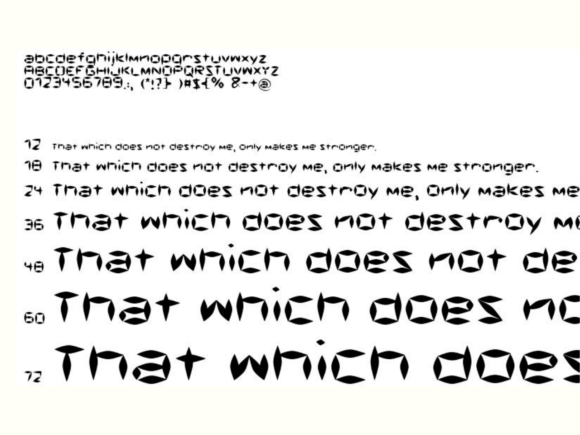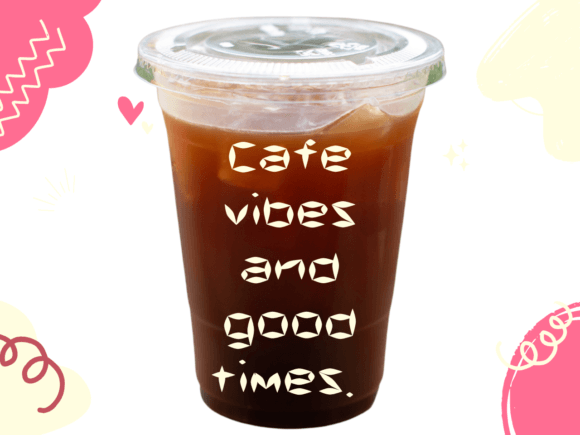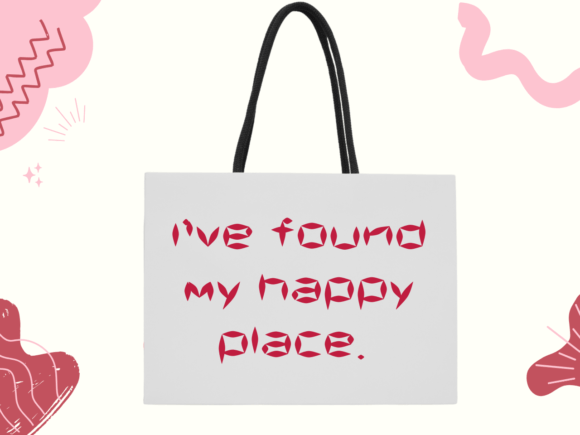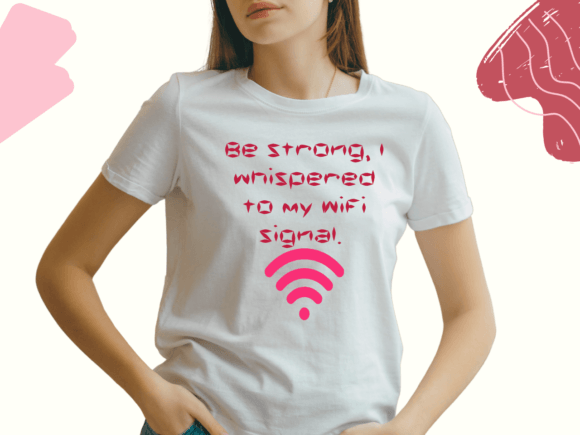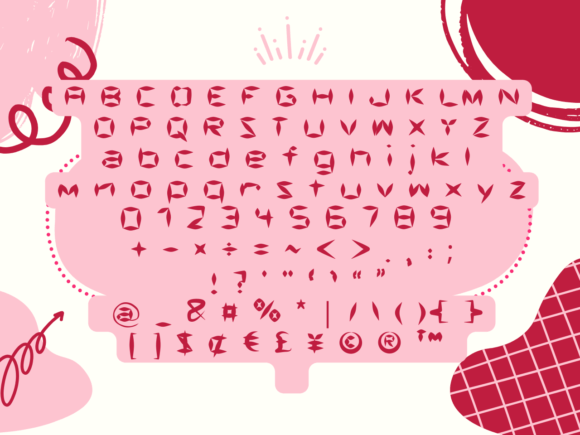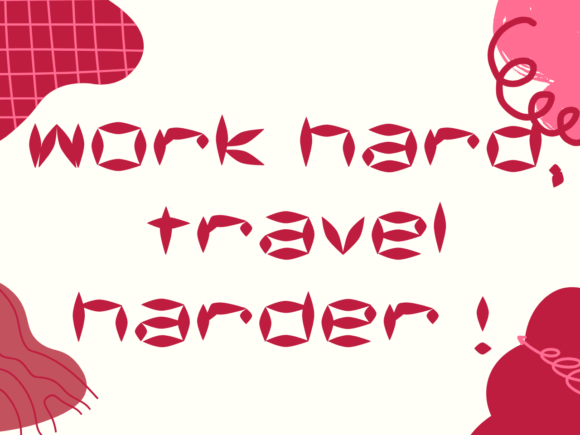
Croyant Font: Add a Joyful Touch to Your Designs
Are you tired of using the same old fonts in your designs? Look no further than Croyant Font, a cute and quirky display font that’s sure to add a joyful touch to your creative projects. With its unique and playful style, Croyant Font is perfect for designers and crafters who want to make their designs stand out from the crowd.
What is Croyant Font?
Croyant Font is a display font that’s designed to make a statement. Its cute and quirky style is perfect for adding a touch of personality to your designs. Whether you’re working on a logo, a poster, or a social media graphic, Croyant Font is sure to add a playful and eye-catching element to your project.
Key Features of Croyant Font
• Cute and Quirky Style: Croyant Font has a unique and playful style that’s sure to add a touch of personality to your designs.
• Display Font: Croyant Font is a display font, making it perfect for headlines, titles, and other large text elements.
• Easy to Read: Despite its playful style, Croyant Font is easy to read, making it perfect for use in a variety of design projects.
• Versatile: Croyant Font can be used in a variety of design projects, from logos and posters to social media graphics and more.
Why Use Croyant Font?
So why should you use Croyant Font in your designs? Here are just a few reasons:
• Adds a Joyful Touch: Croyant Font is sure to add a joyful touch to your designs, making them more engaging and eye-catching.
• Stand Out from the Crowd: With its unique and playful style, Croyant Font is sure to make your designs stand out from the crowd.
• Perfect for Creative Projects: Croyant Font is perfect for use in creative projects, such as logos, posters, and social media graphics.
Design Ideas Using Croyant Font
Croyant Font is a versatile font that can be used in a variety of design projects. Here are a few ideas to get you started:
• Logos: Croyant Font is perfect for use in logos, particularly for businesses that want to add a playful and eye-catching element to their branding.
• Posters: Croyant Font is also great for use in posters, whether you’re advertising a event, promoting a product, or simply creating a fun and eye-catching design.
• Social Media Graphics: Croyant Font is perfect for use in social media graphics, such as Facebook posts, Instagram stories, and more.
• Invitations: Croyant Font is also great for use in invitations, whether you’re planning a party, a wedding, or other special event.
Croyant Font is a cute and quirky display font that’s sure to add a joyful touch to your designs. With its unique and playful style, Croyant Font is perfect for designers and crafters who want to make their designs stand out from the crowd. Whether you’re working on a logo, a poster, or a social media graphic, Croyant Font is sure to add a playful and eye-catching element to your project. So why not give it a try and see how it can add a touch of personality to your designs?